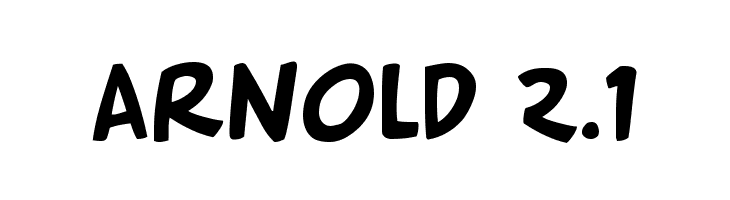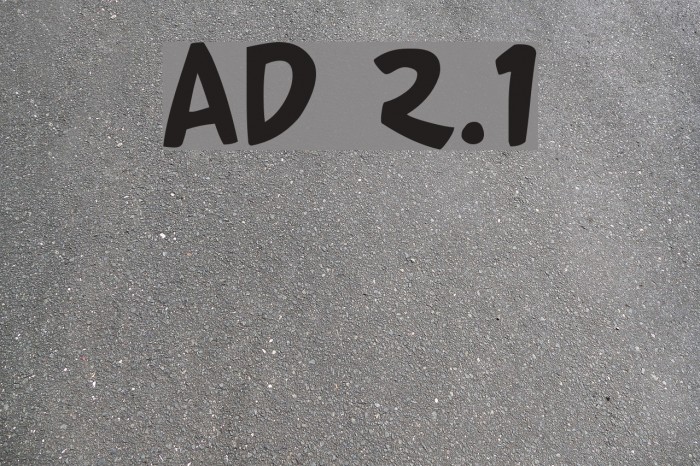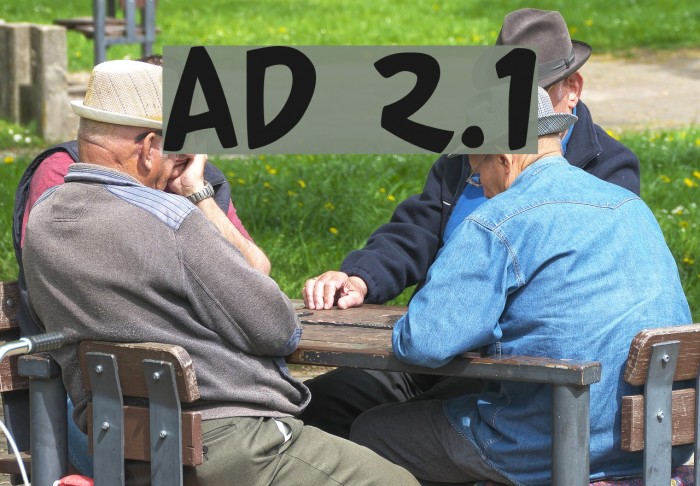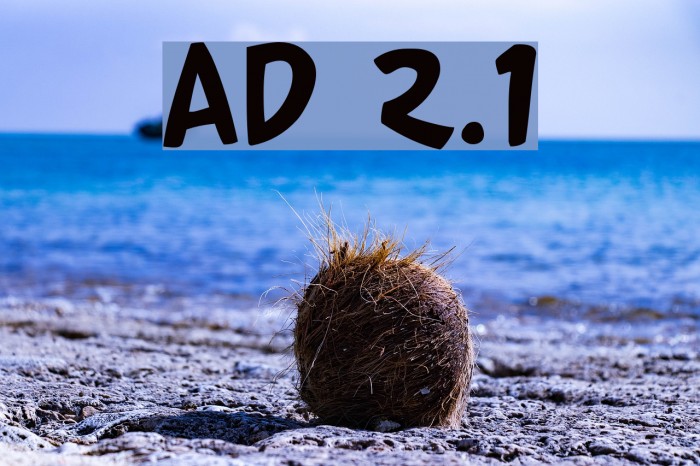
Arnold 2.1 Font
Arnold 2.1 Description
This font features a playful and bold style with rounded edges and a slightly irregular baseline, giving it a hand-drawn appearance. The characters are thick and substantial, making them highly visible and impactful. The uppercase and lowercase letters maintain a consistent style, with a slight slant that adds to the dynamic feel. Numbers and special characters follow the same design principles, ensuring uniformity across all glyphs. The font's overall look is casual and friendly, making it suitable for projects that require a personal touch.
A playful, bold, and hand-drawn style font with rounded edges and a dynamic slant from Comic fonts.
- Proposed Projects: Ideal for children's books, comic strips, playful branding, and casual invitations.
- Overall Style: Casual
- Use Case: Headlines, Logos, Informal Text